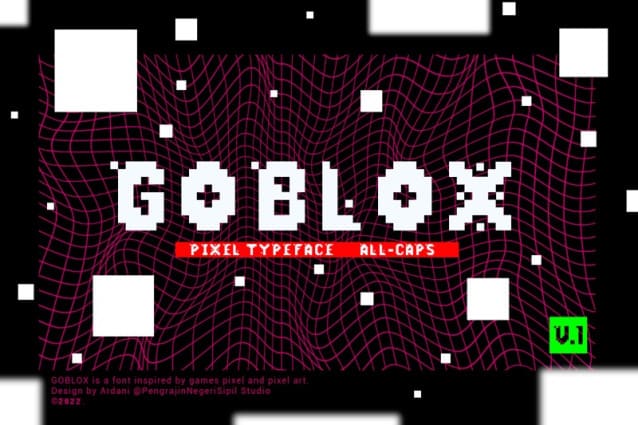
GoBlox Display Font
GoBlox Display Font, Perfectly fit for branding, logo, wedding things, greeting cards, fashion, lookbook, marketing promotion, anytime you want to look fancy elegant but still casual.